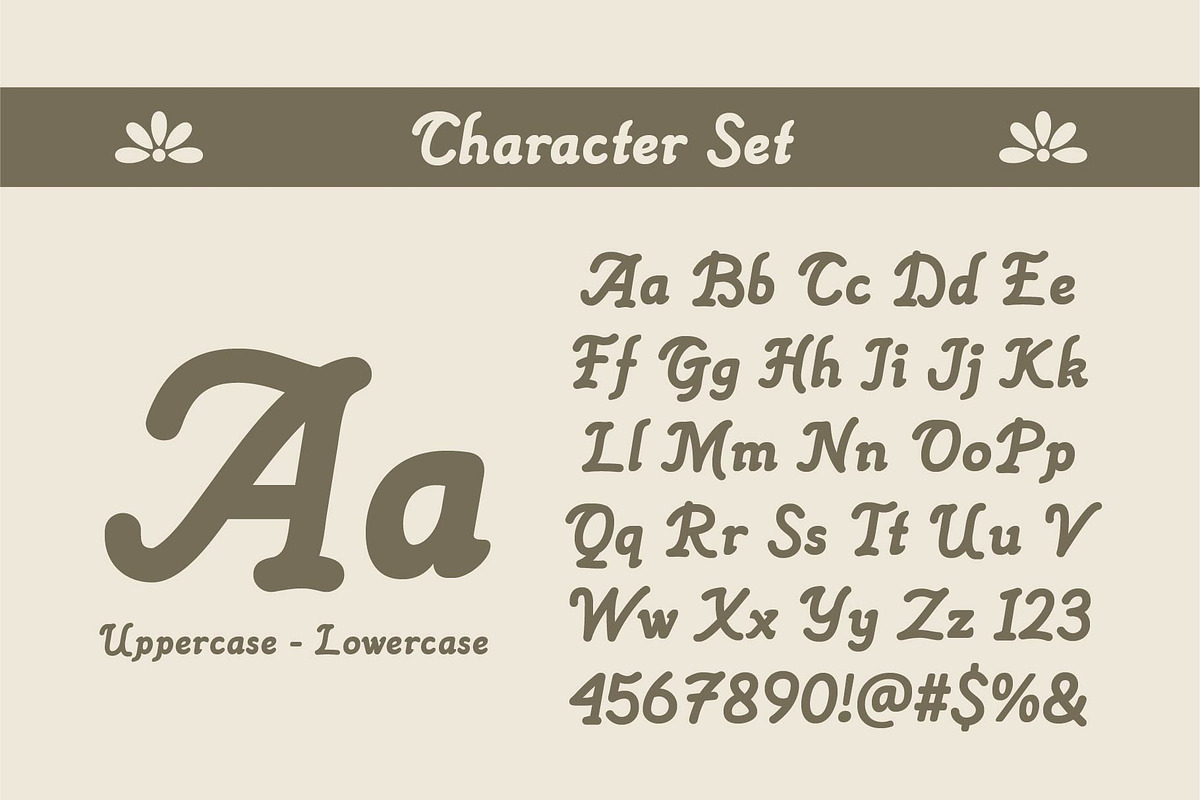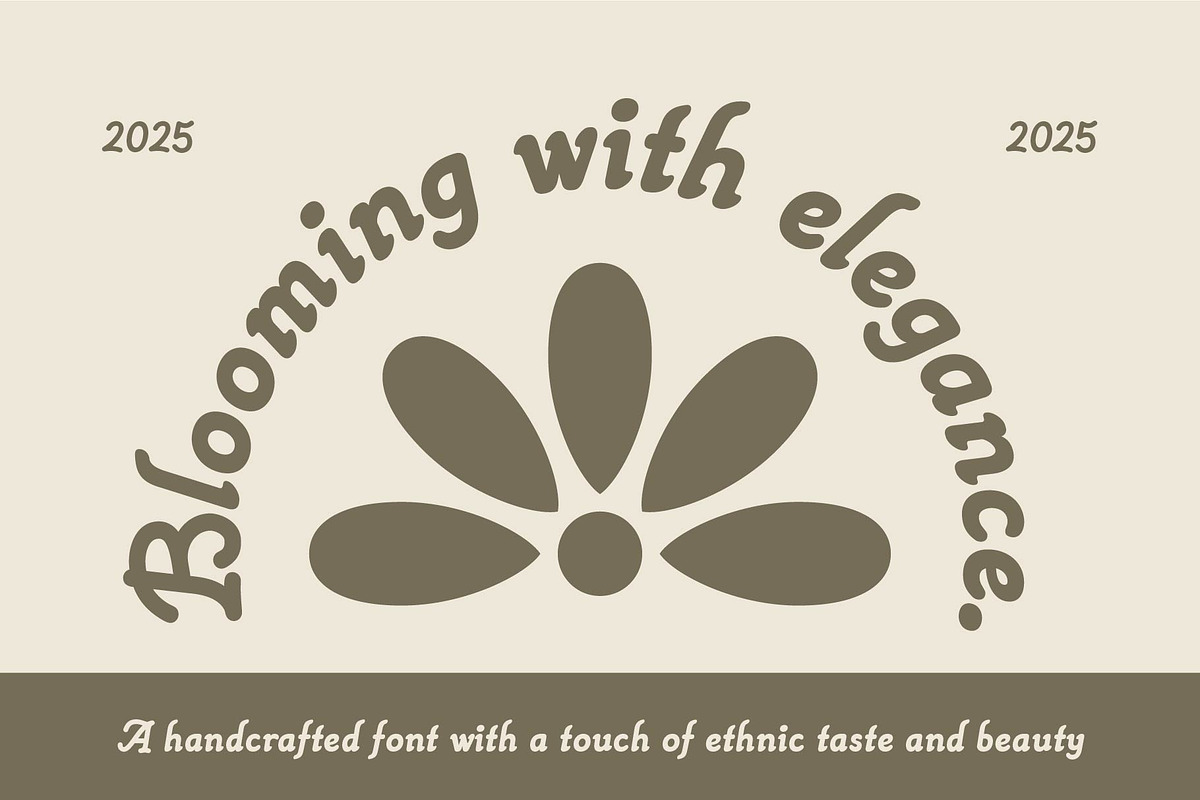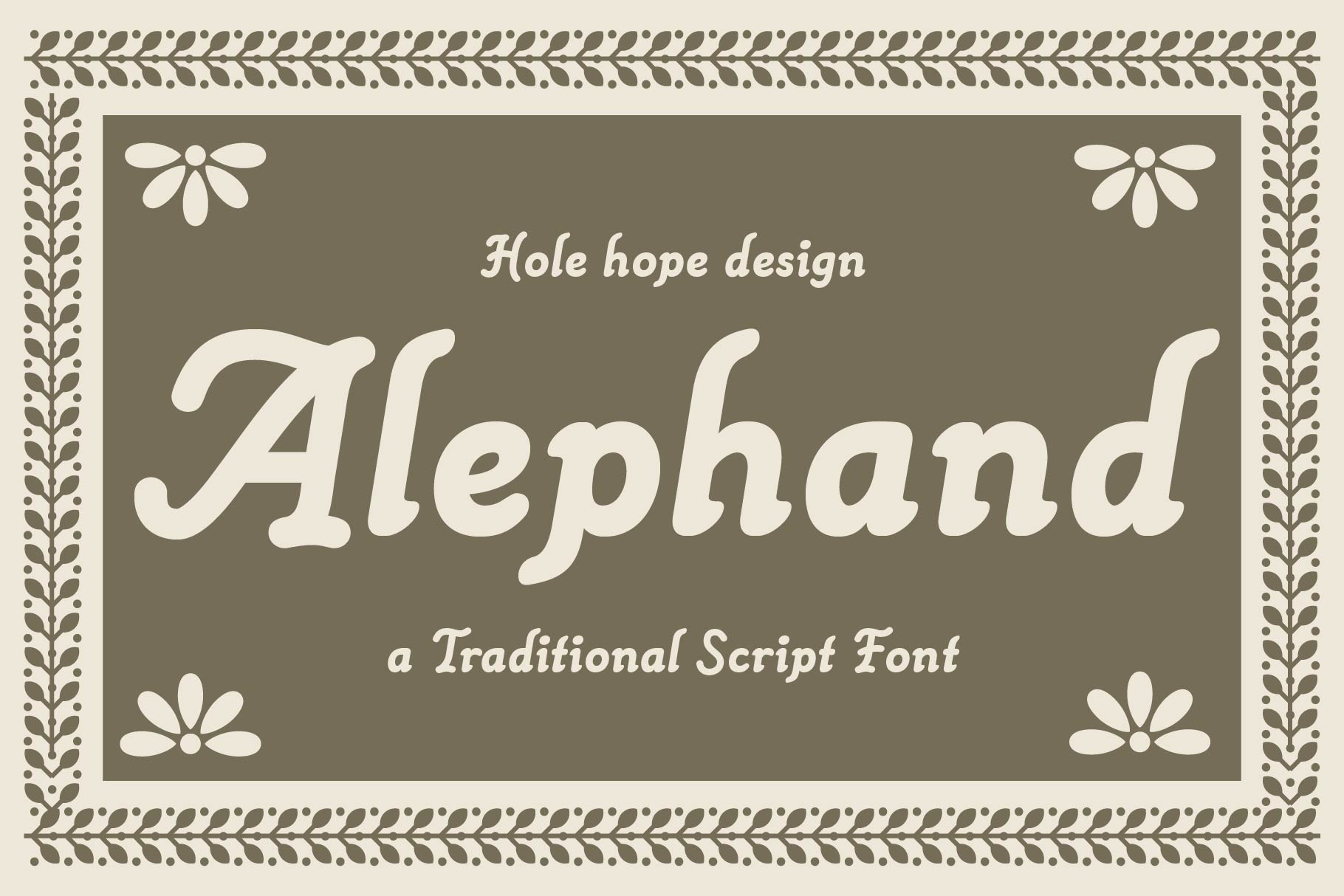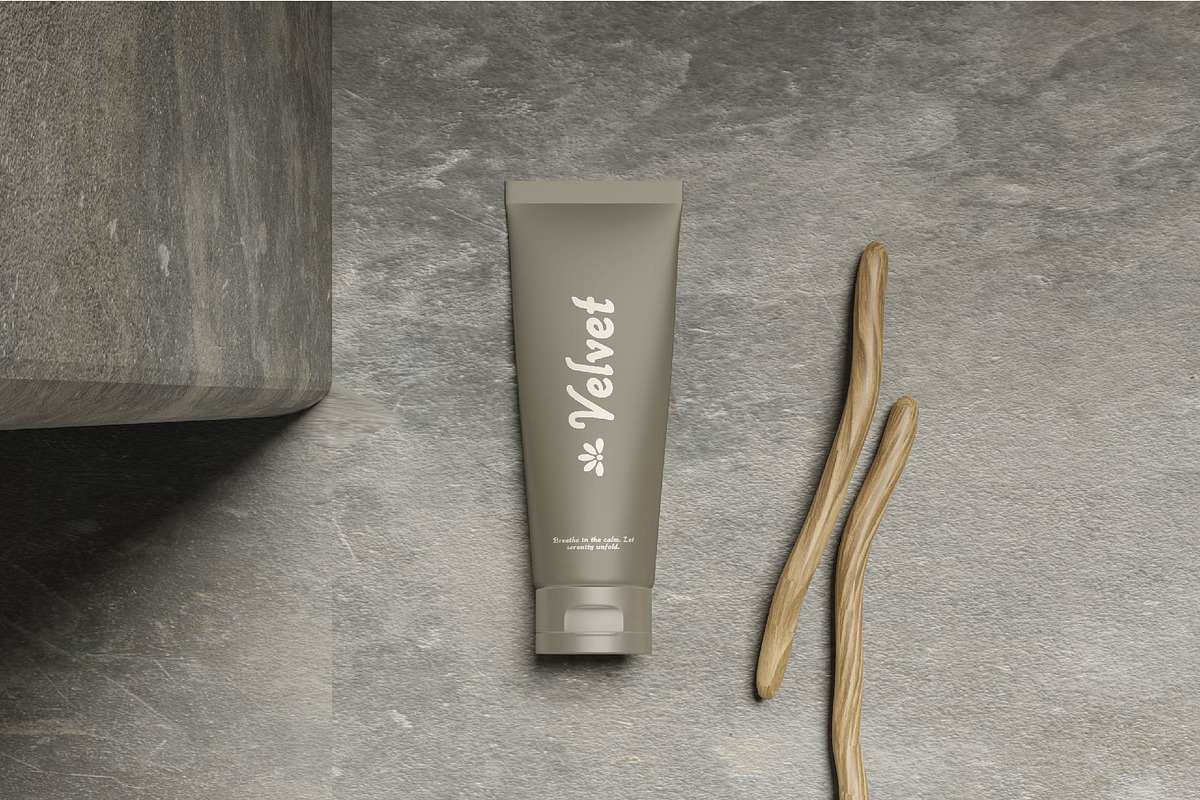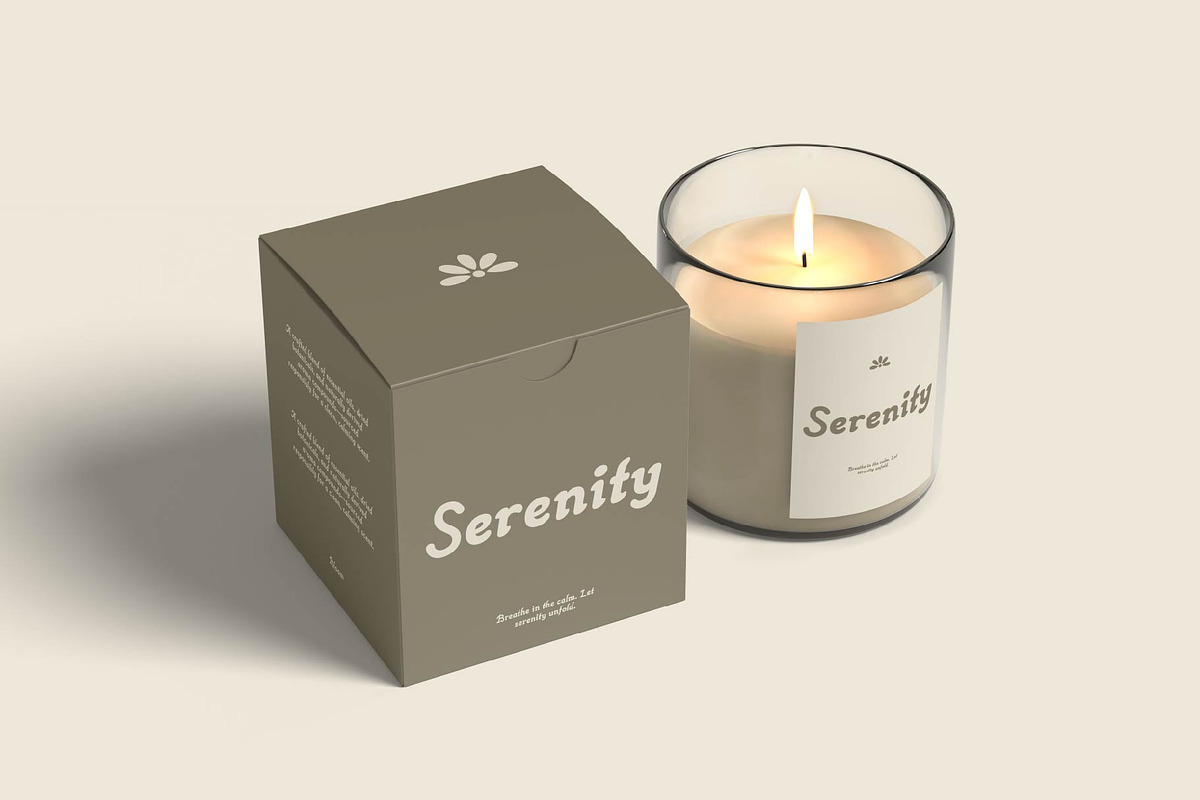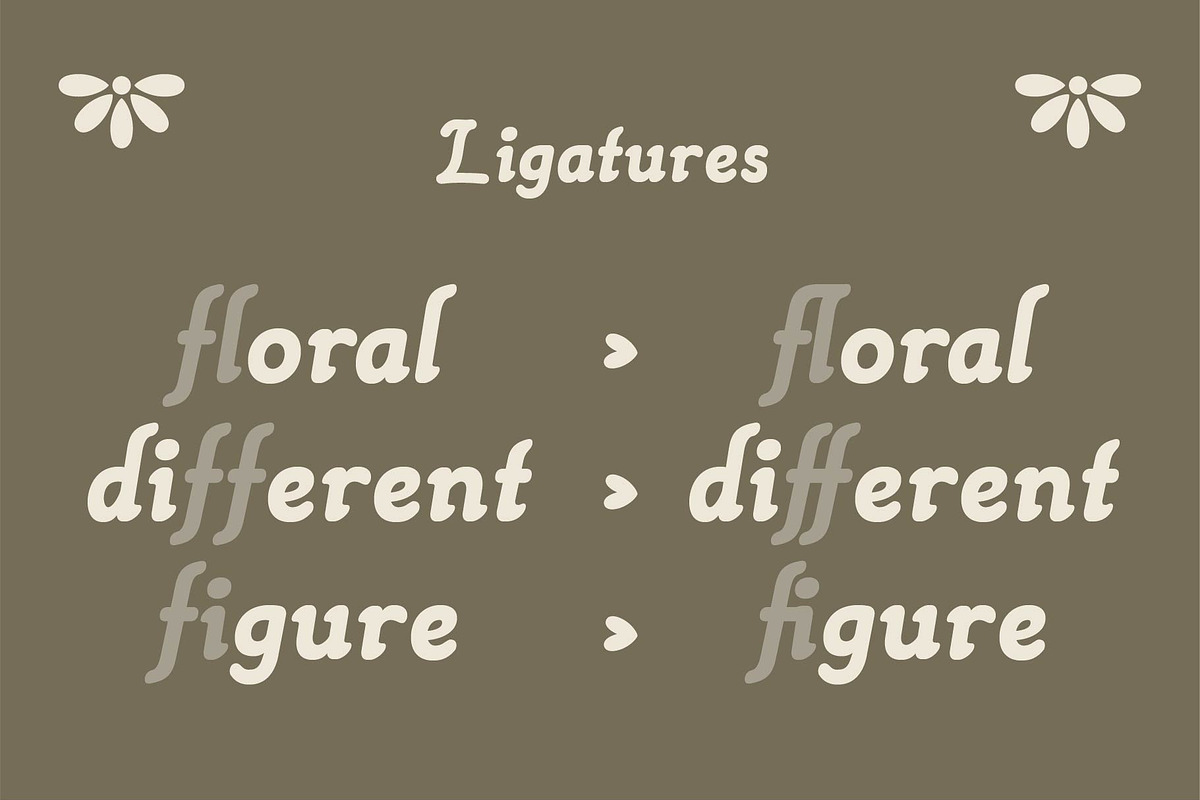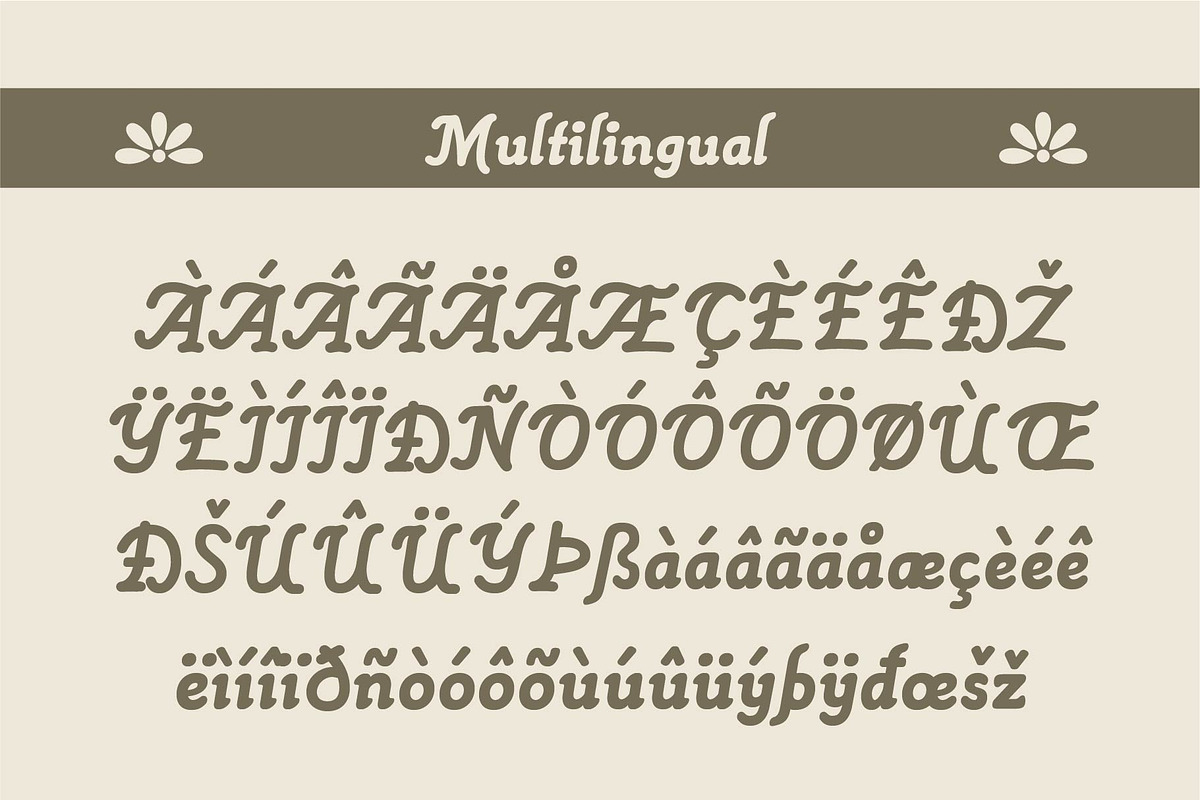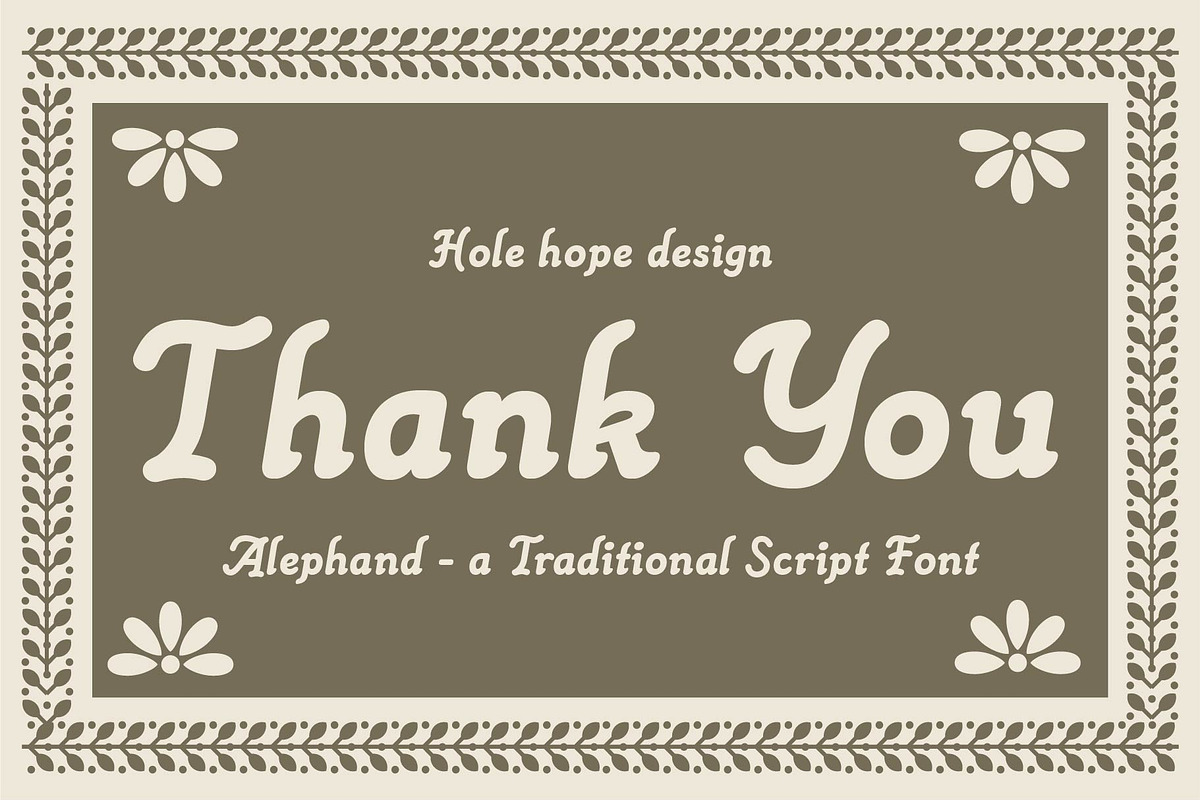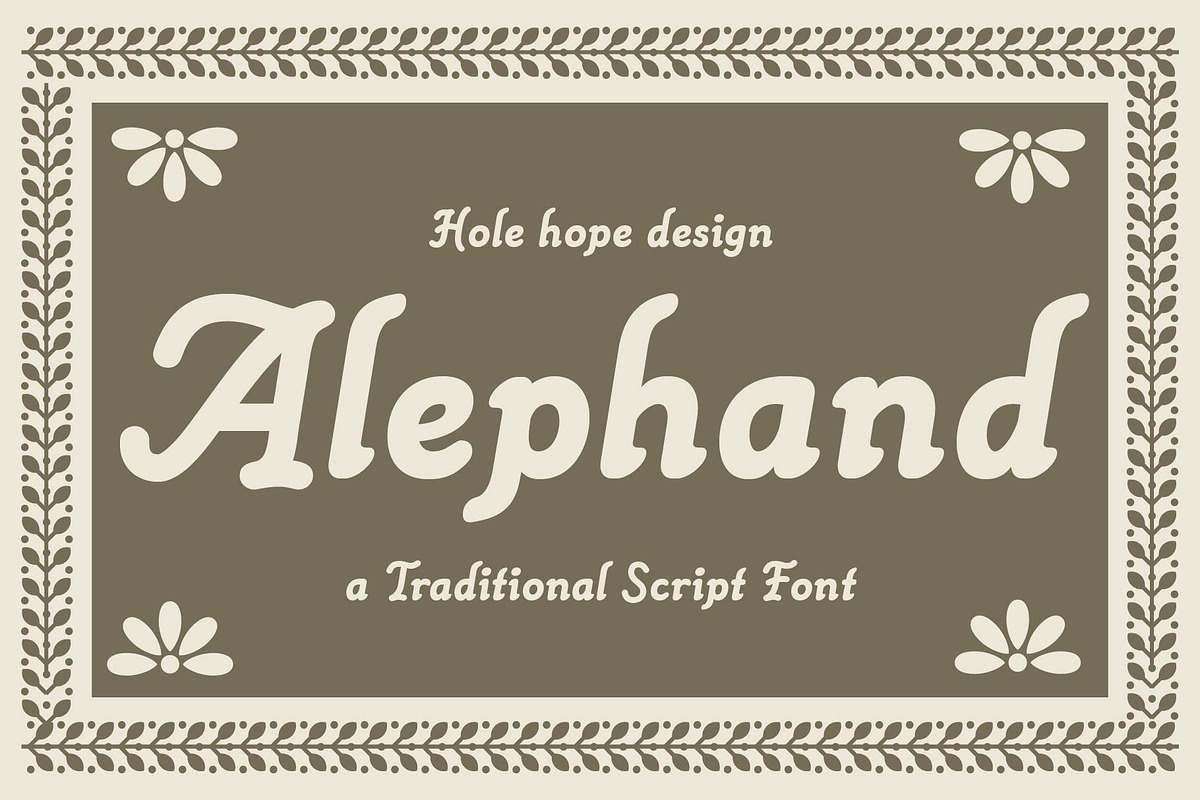
Alephand – A Traditional Script Font
Alephand – A Traditional Script Font is a bold yet elegant handwritten script inspired by classic traditional lettering. With smooth curves, expressive strokes, and a natural hand-drawn rhythm, it delivers a strong character while keeping a refined, timeless feel.
Ideal for logos, branding, packaging, invitations, posters, and cultural or vintage-themed designs, Alephand adds personality and authenticity to your work. This font is perfect for projects that seek a balance between tradition, artistry, and visual impact.
Alephand – A Traditional Script Font features:
- Punctuation & Numbers